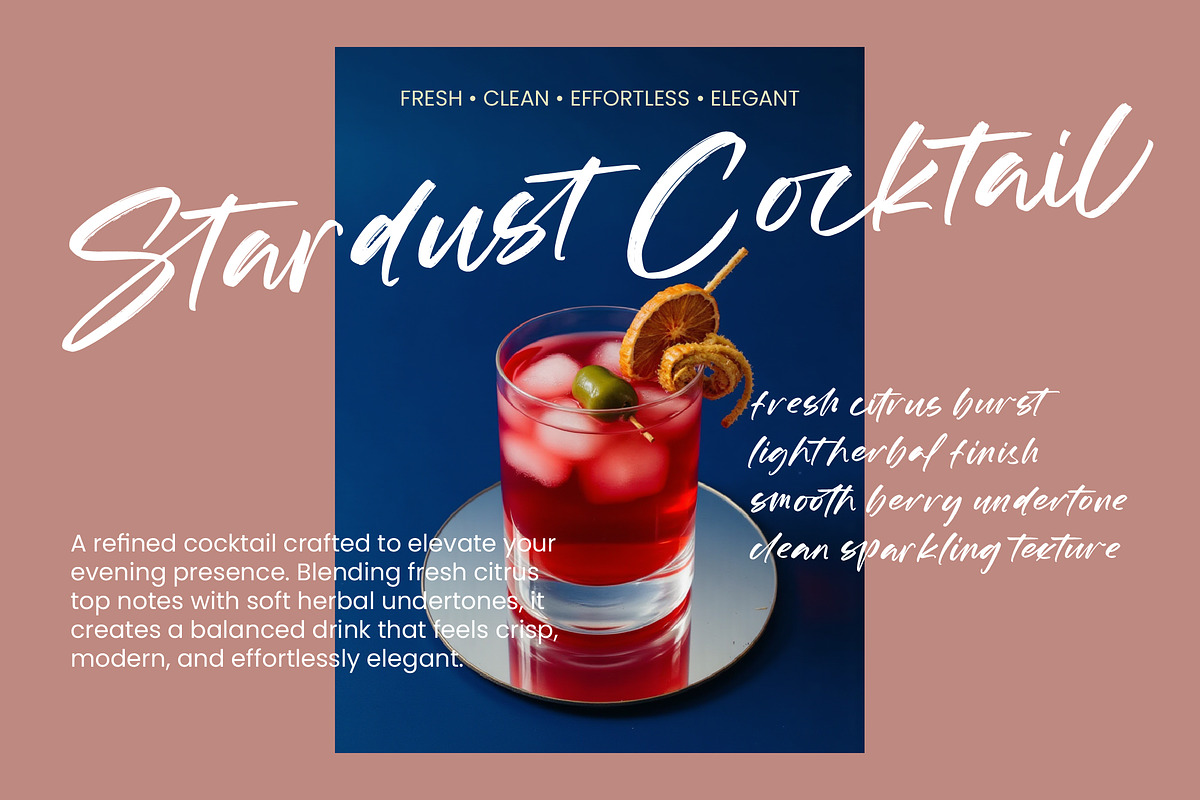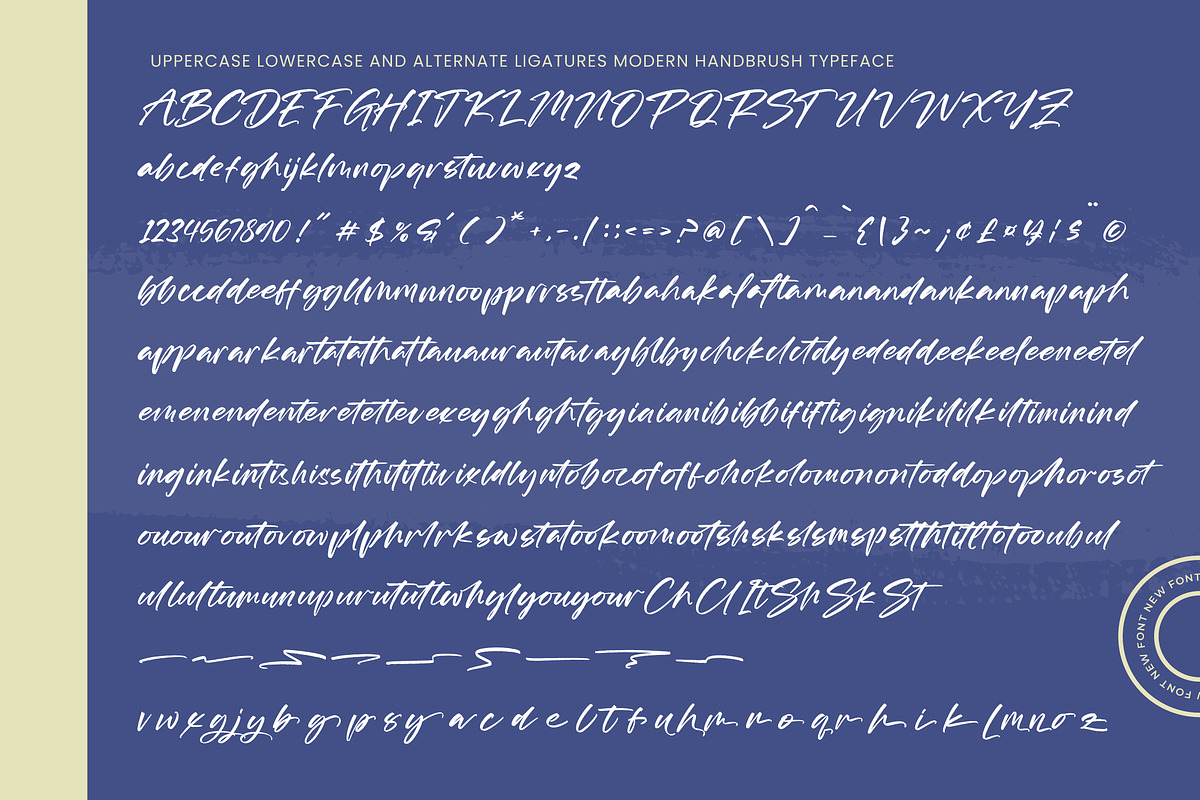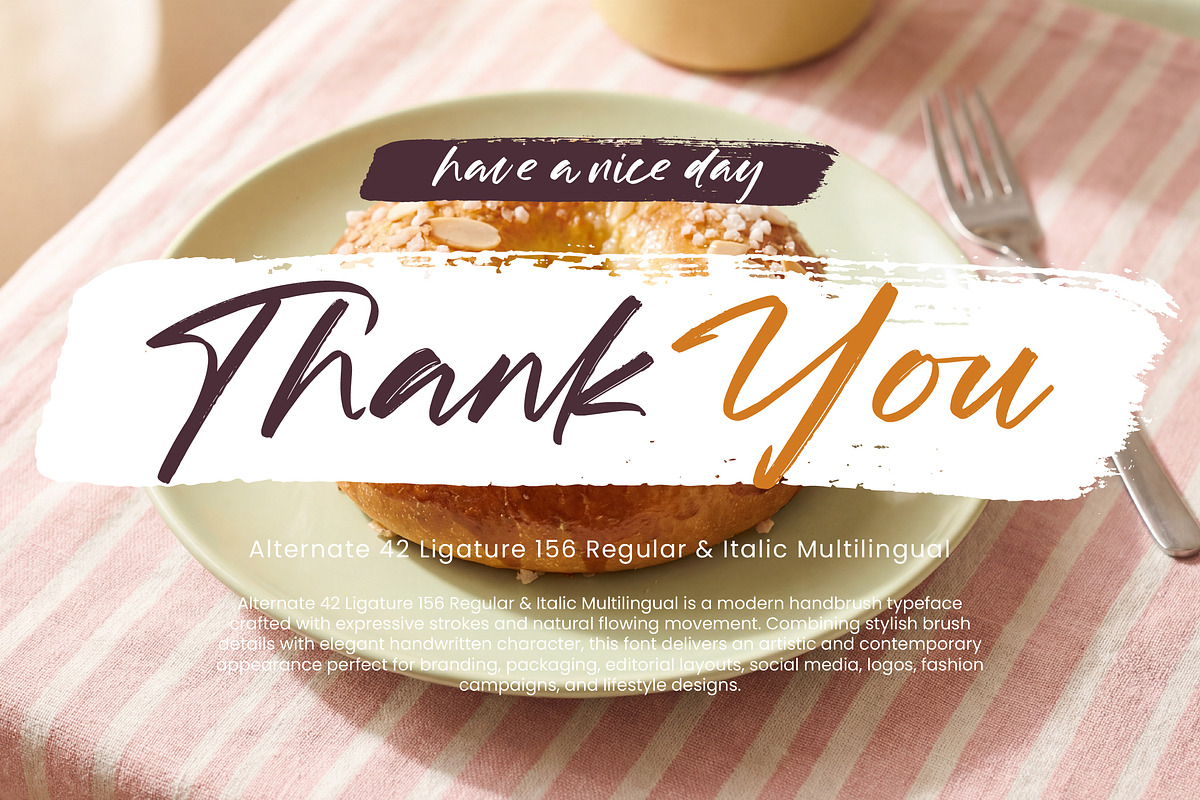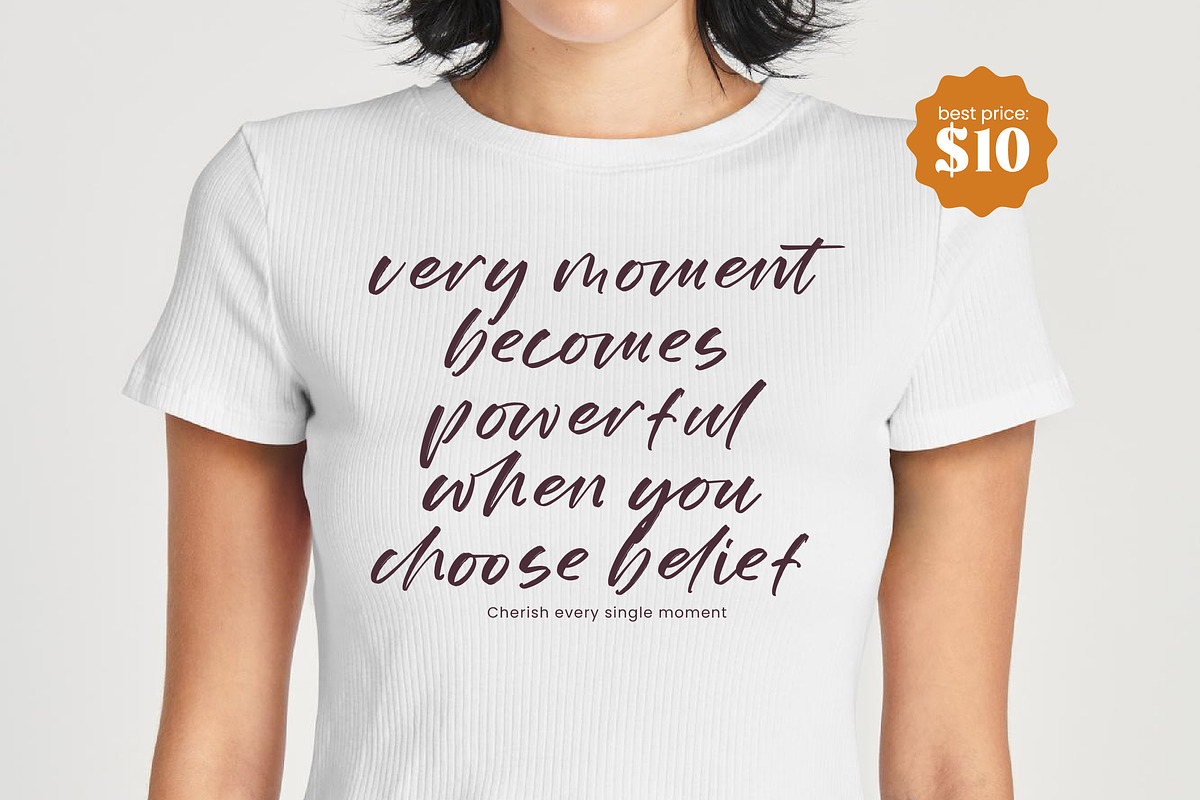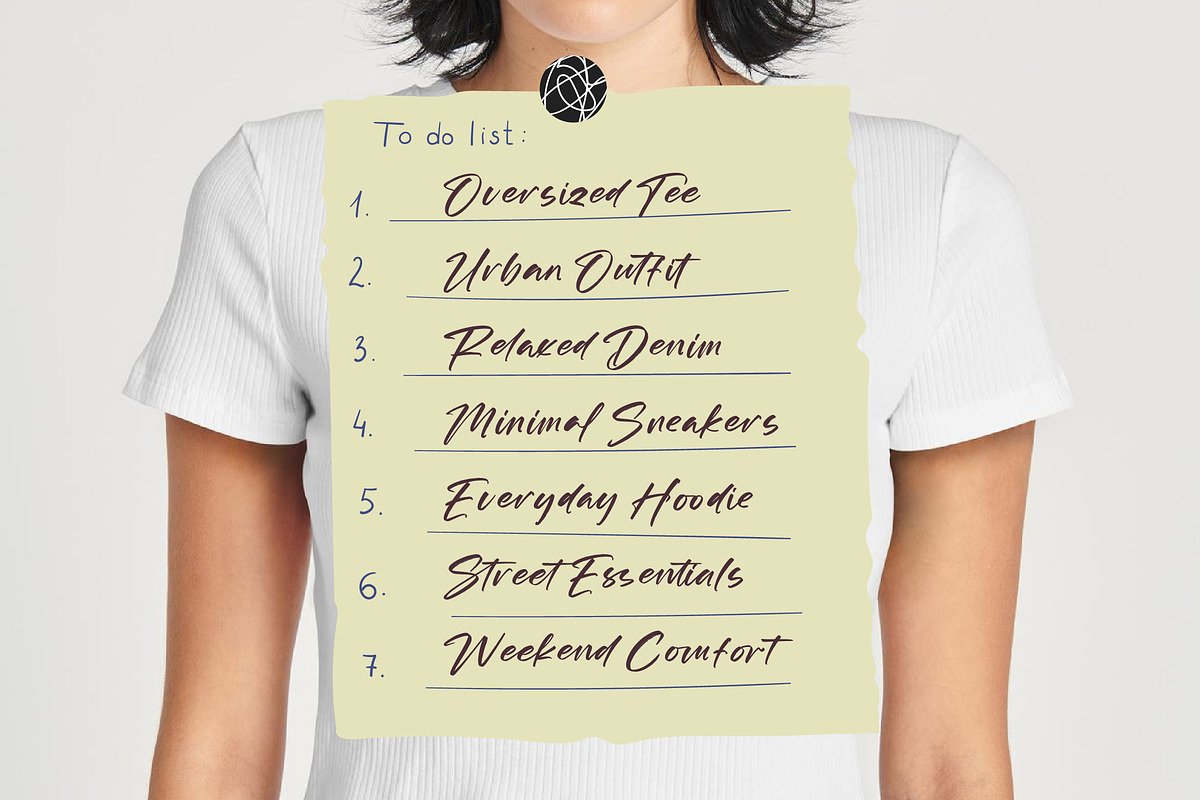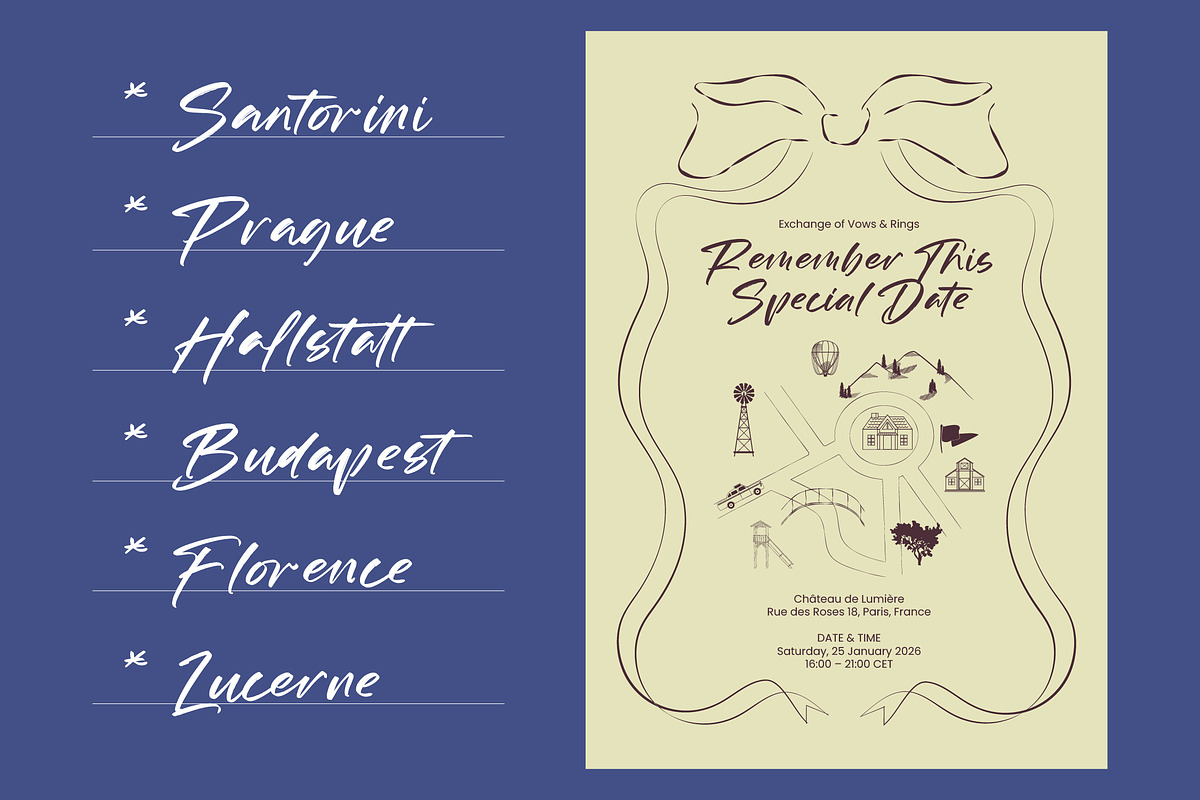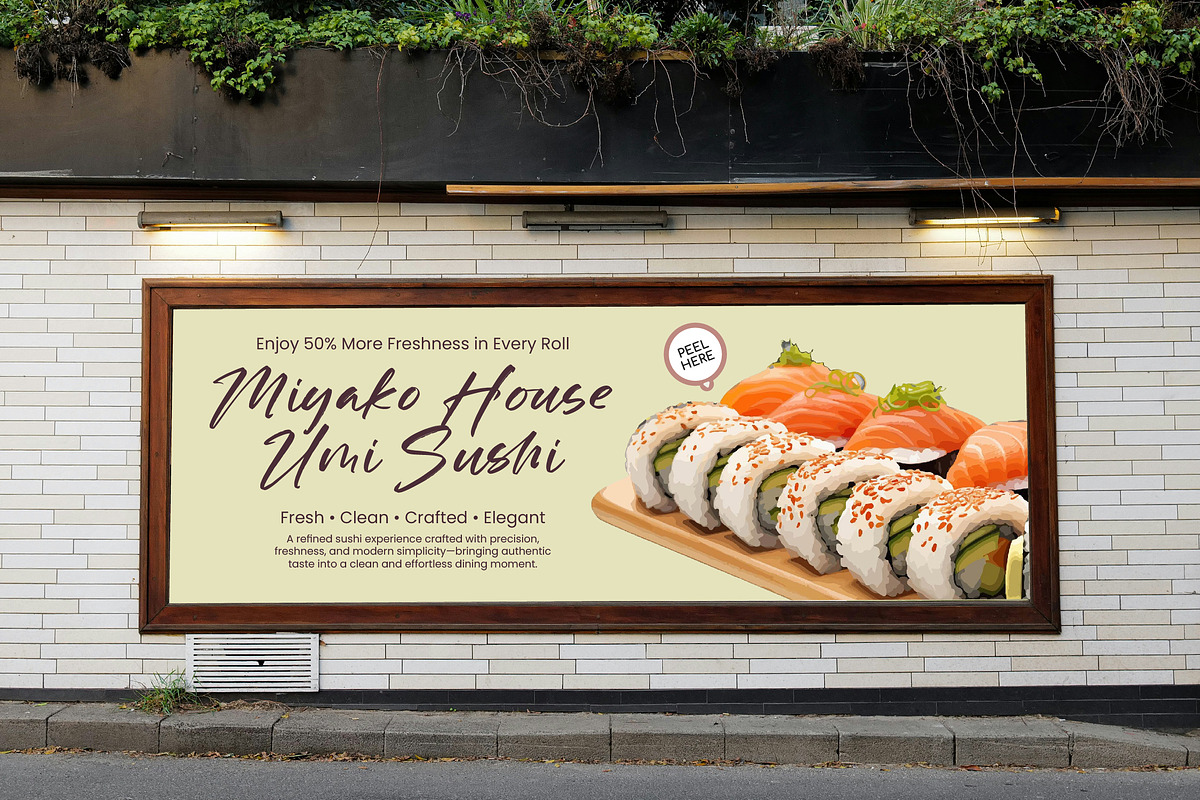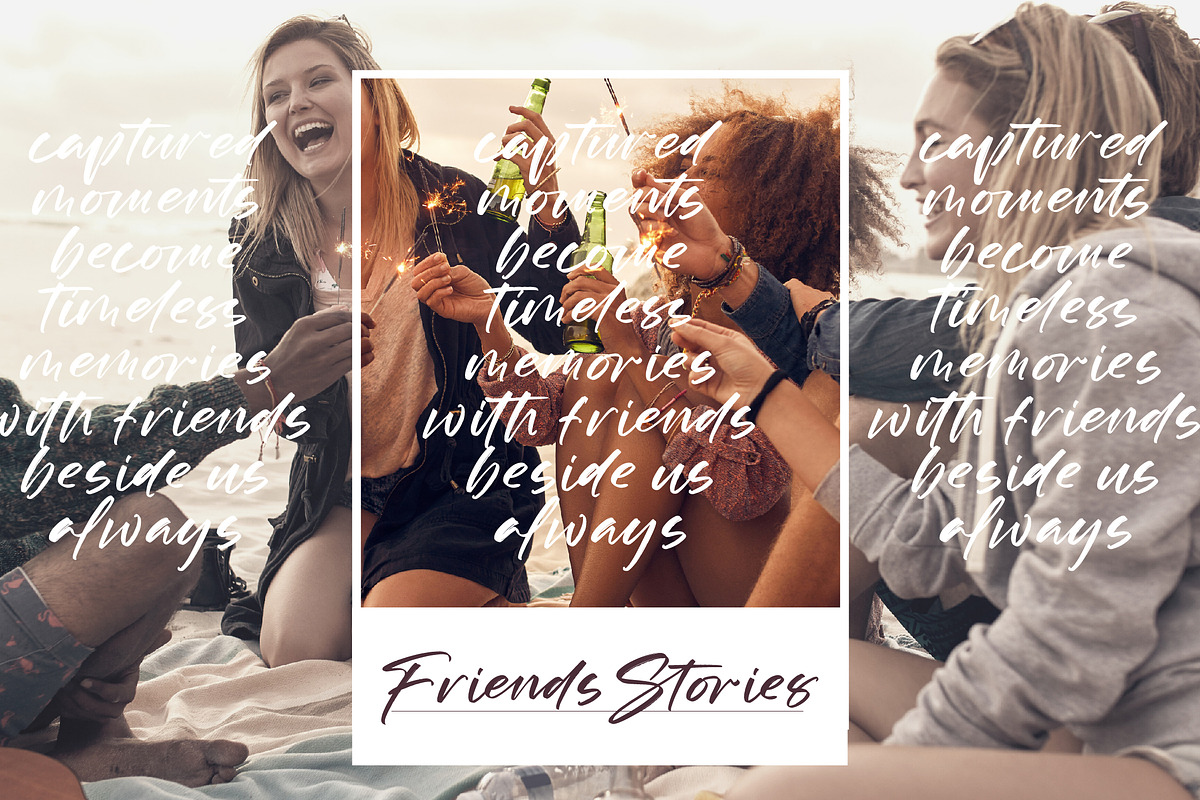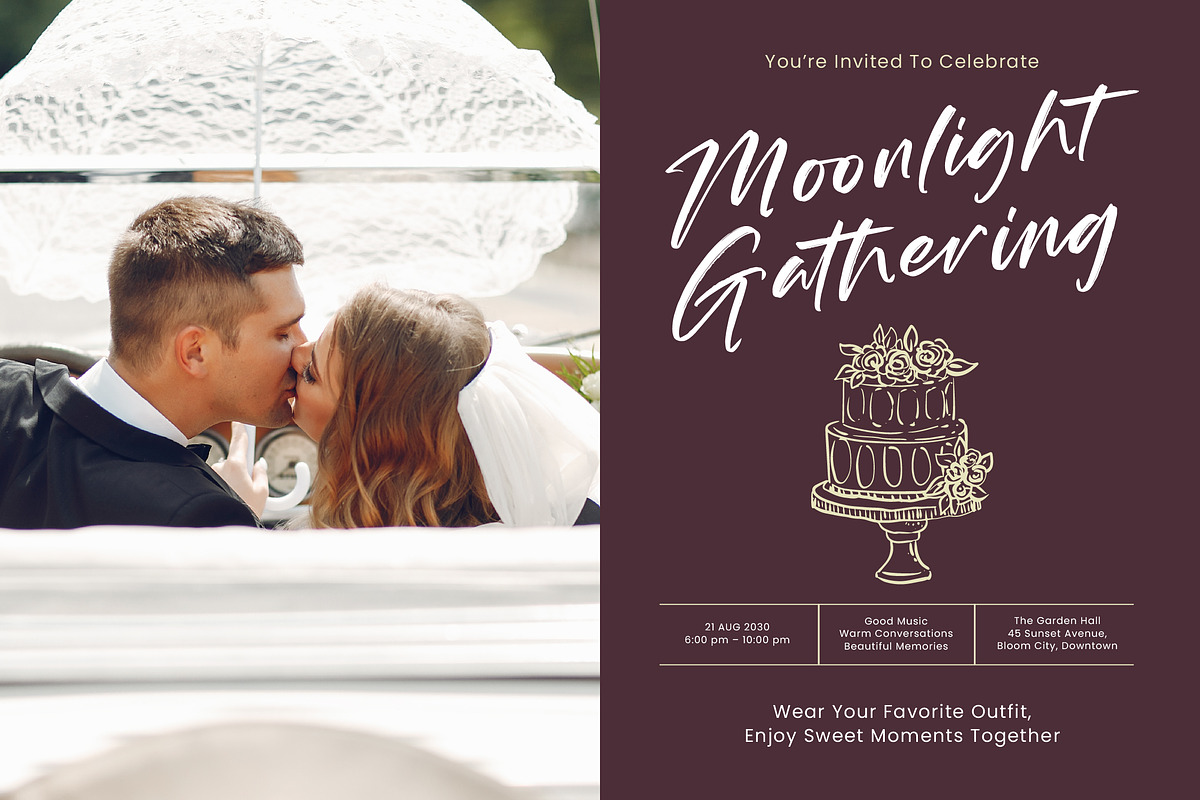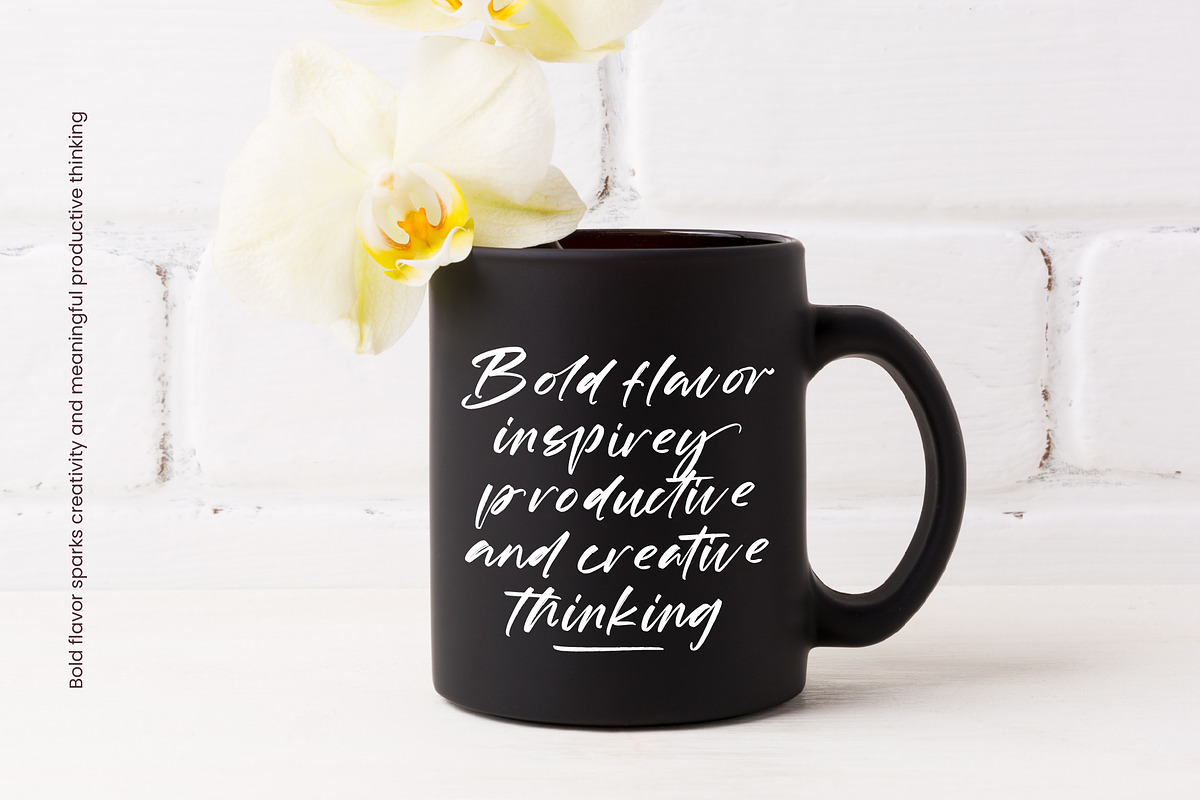
Starligh Timber Modern Handbrush
Starligh Timber – Modern Handbrush Script , Elevate your creative vision with a typeface that embodies raw energy and sophisticated elegance. Starligh Timber – Modern Handbrush Script is a premier choice for designers seeking an authentic, organic feel. With its expressive strokes and natural flowing movement, this font captures handcrafted artistry while maintaining a contemporary edge. Whether for high-end projects or casual brands, Starligh Timber – Modern Handbrush Script provides the perfect balance of artistic flair and professional legibility.
Discover the ultimate design asset for projects that demand a personal, high-impact touch. This typeface is perfectly suited for luxury branding, premium packaging, and editorial design. Its stylish brush details make it an exceptional choice for fashion campaigns, logo design, and lifestyle photography. Starligh Timber – Modern Handbrush Script is also perfect for social media graphics, ensuring your message resonates with a bespoke, artisanal aesthetic that stands out in any digital landscape.
Expand your reach with a versatile tool designed for the global creative economy. With its extensive multilingual support, Starligh Timber – Modern Handbrush Script adapts seamlessly across global markets, making it incredibly versatile for international projects. Featuring a robust collection of 42 alternates and 156 ligatures, this modern handbrush typeface offers unparalleled customization. The inclusion of regular and italic styles allows for dynamic typographic hierarchies, ensuring that Starligh Timber – Modern Handbrush Script remains a functional asset for any toolkit.
Transform your portfolio by integrating a font that bridges the gap between traditional craft and modern luxury. Choosing Starligh Timber – Modern Handbrush Script means investing in a high-quality, professional typeface that prioritizes character. Its elegant handwritten character and expressive textures create an immediate emotional connection with the audience. By incorporating Starligh Timber – Modern Handbrush Script into your workflow, you guarantee a polished, high-contrast finish that defines the next generation of visual storytelling and commercial success.